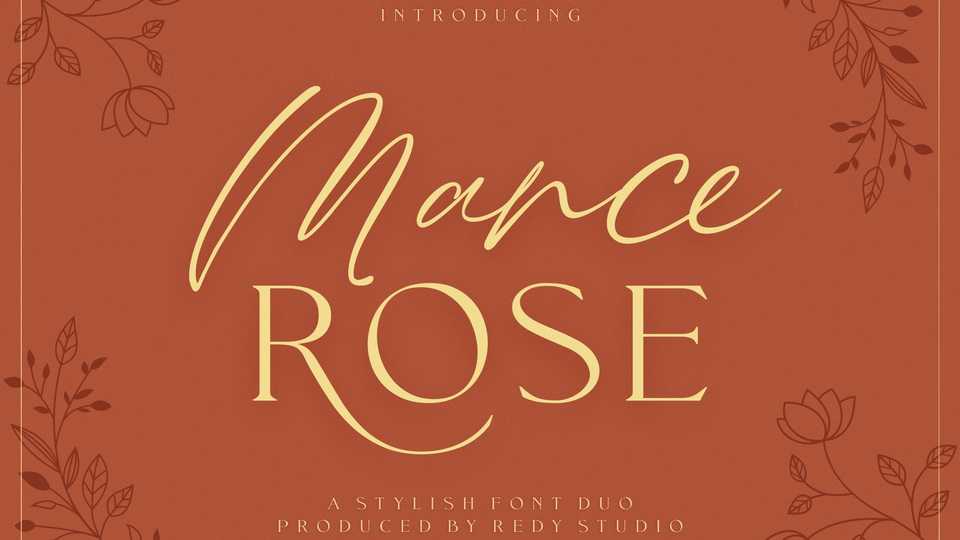
Download Mance Rose font, a fashionable typeface inspired by the warmest place on Earth, perfect to create stylish and elegant designs.
Designer: Redy Studio